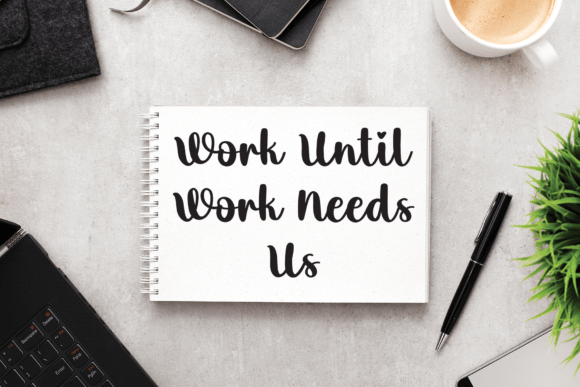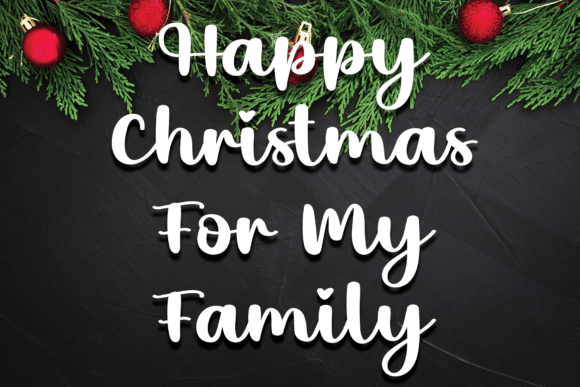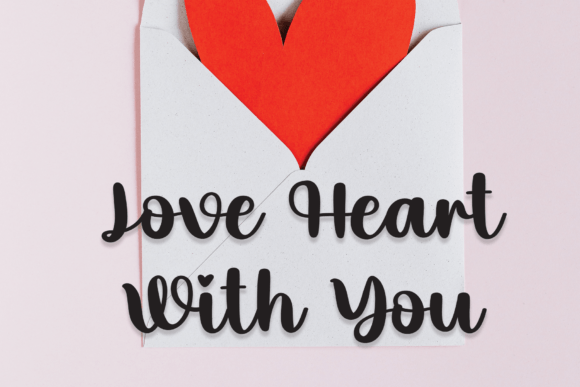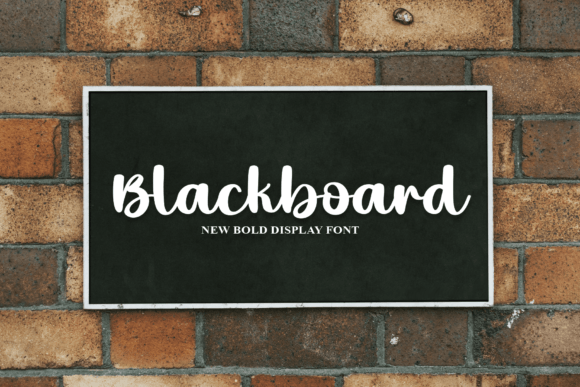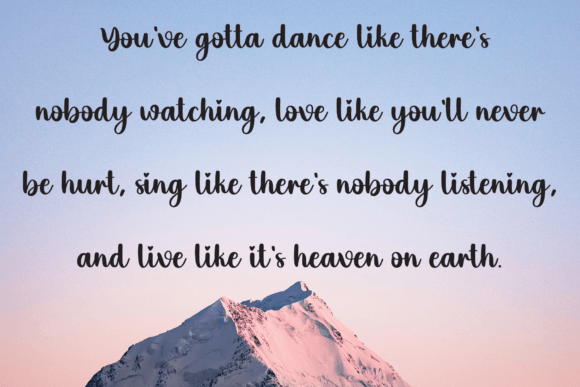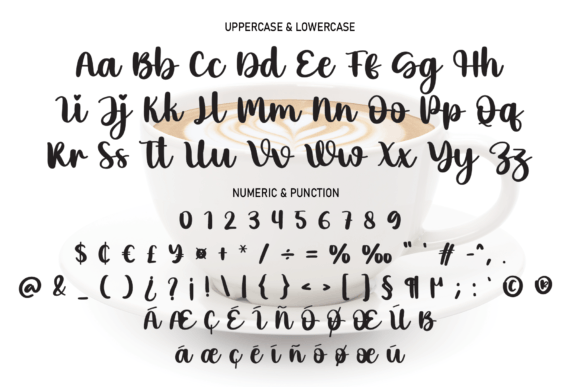
Introduction to Hey Coffee Font
Hey Coffee is a clean, relaxed, and friendly handwritten font.
Suitable for a wide variety of designs due to its neat and simple style, this font has the potential to become your favorite go-to font, no matter the occasion .